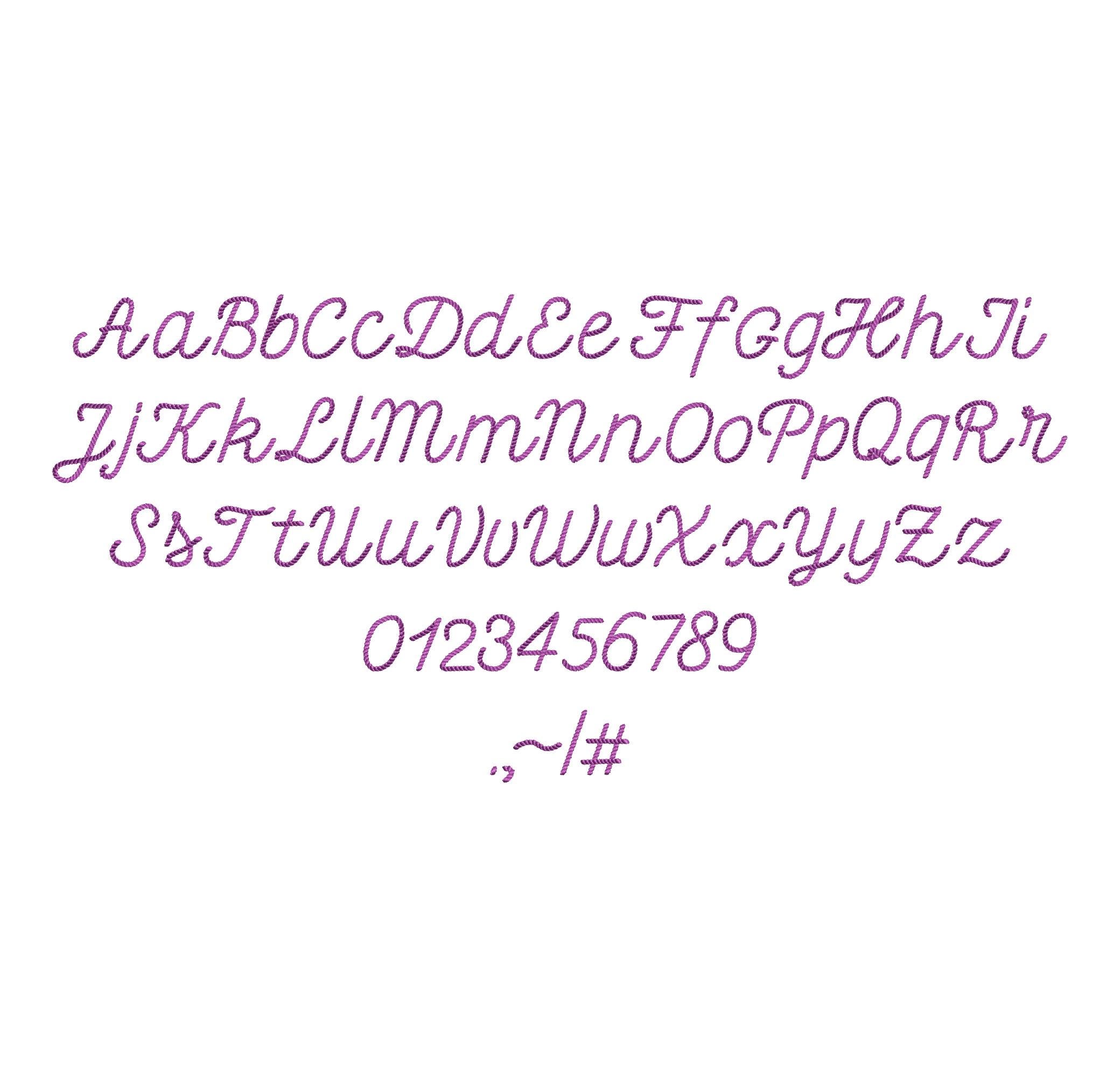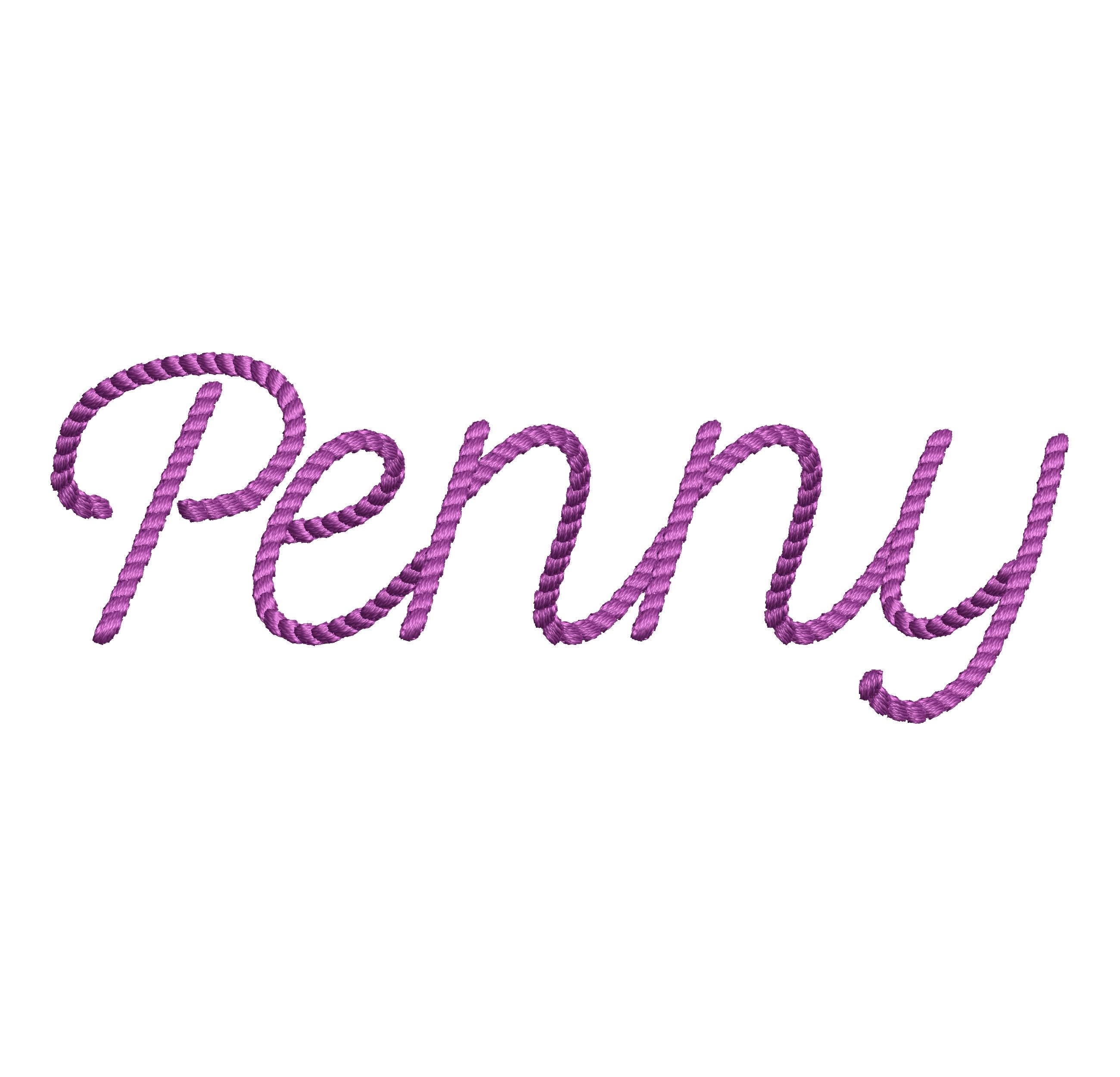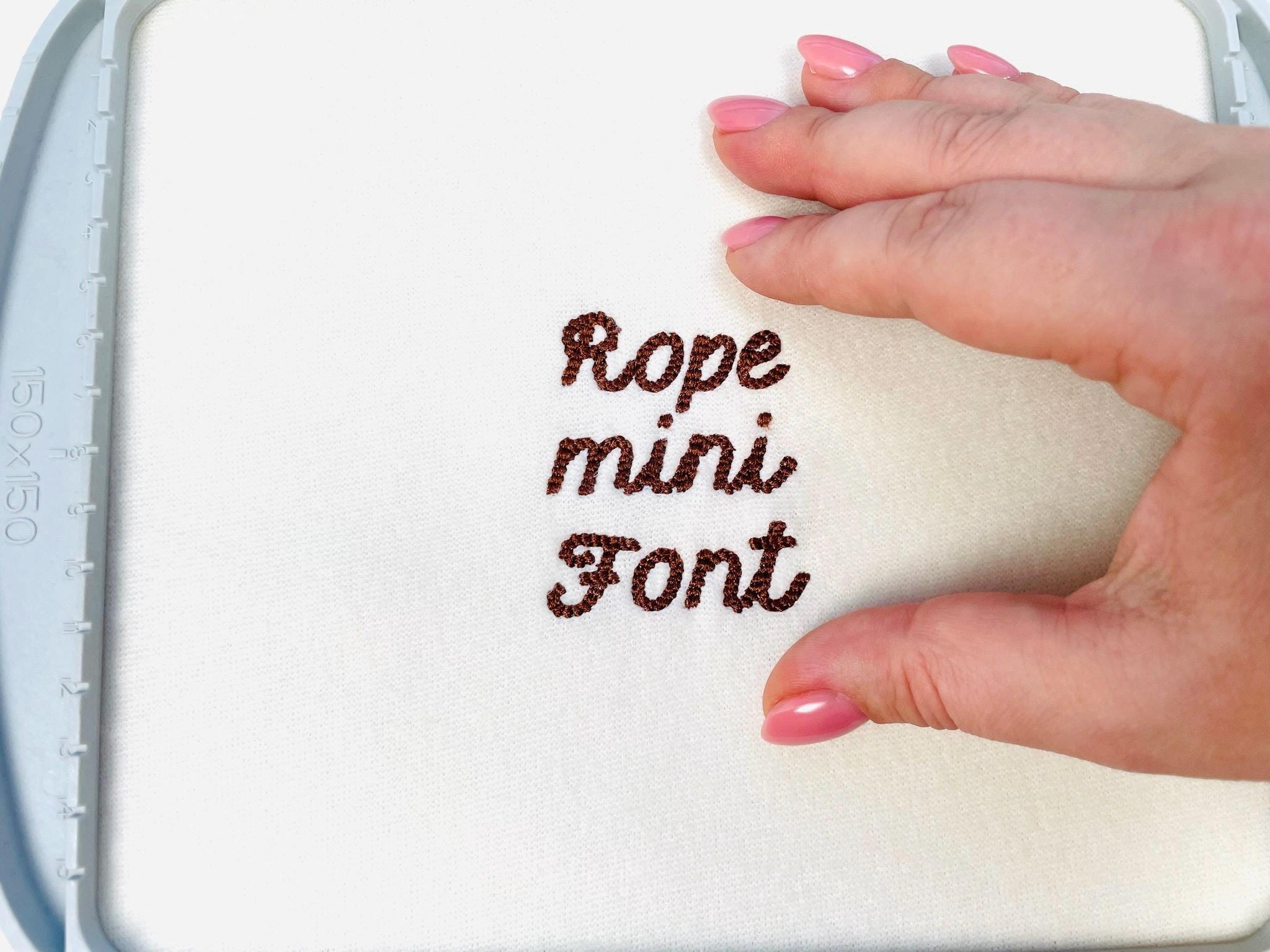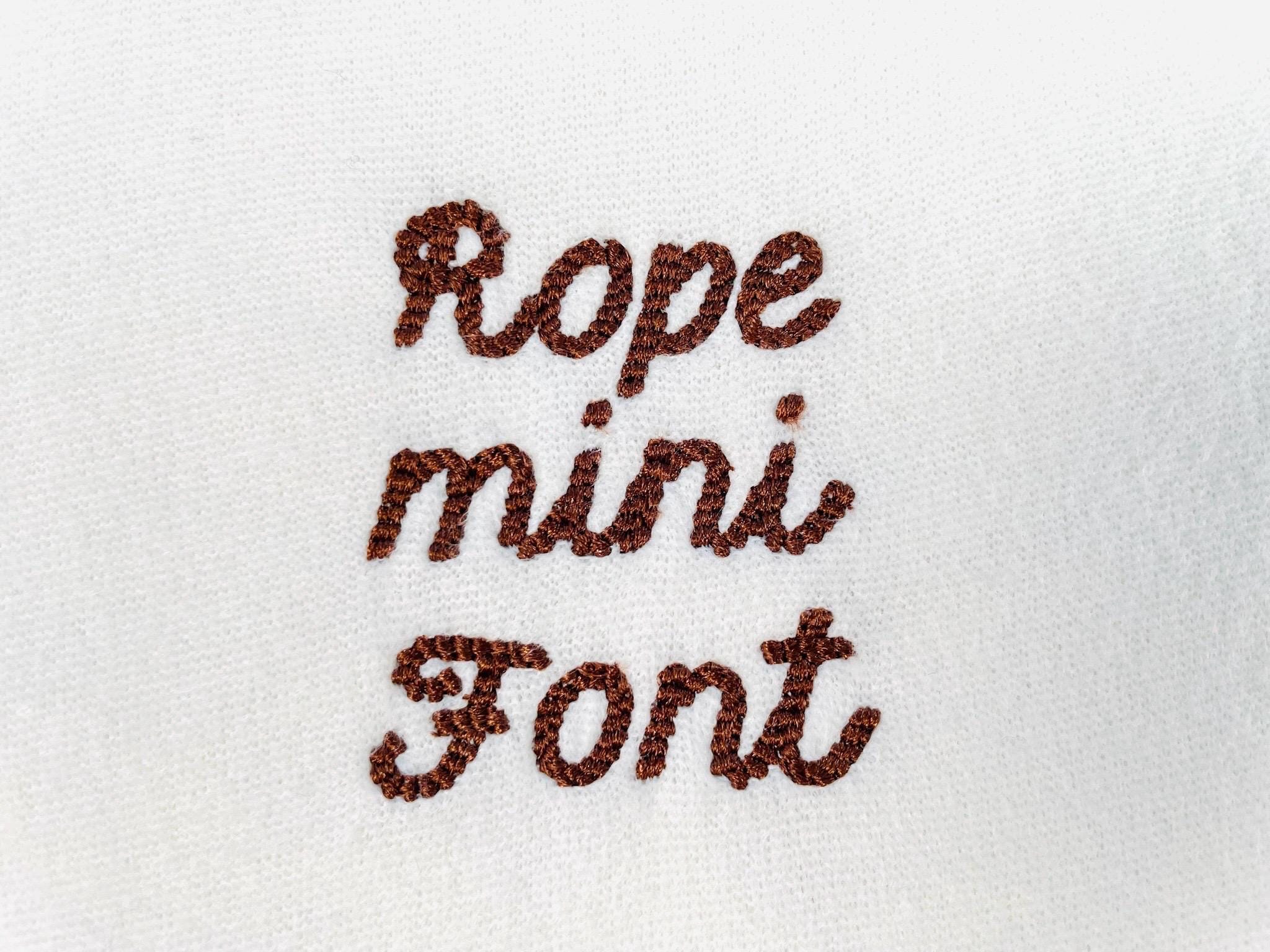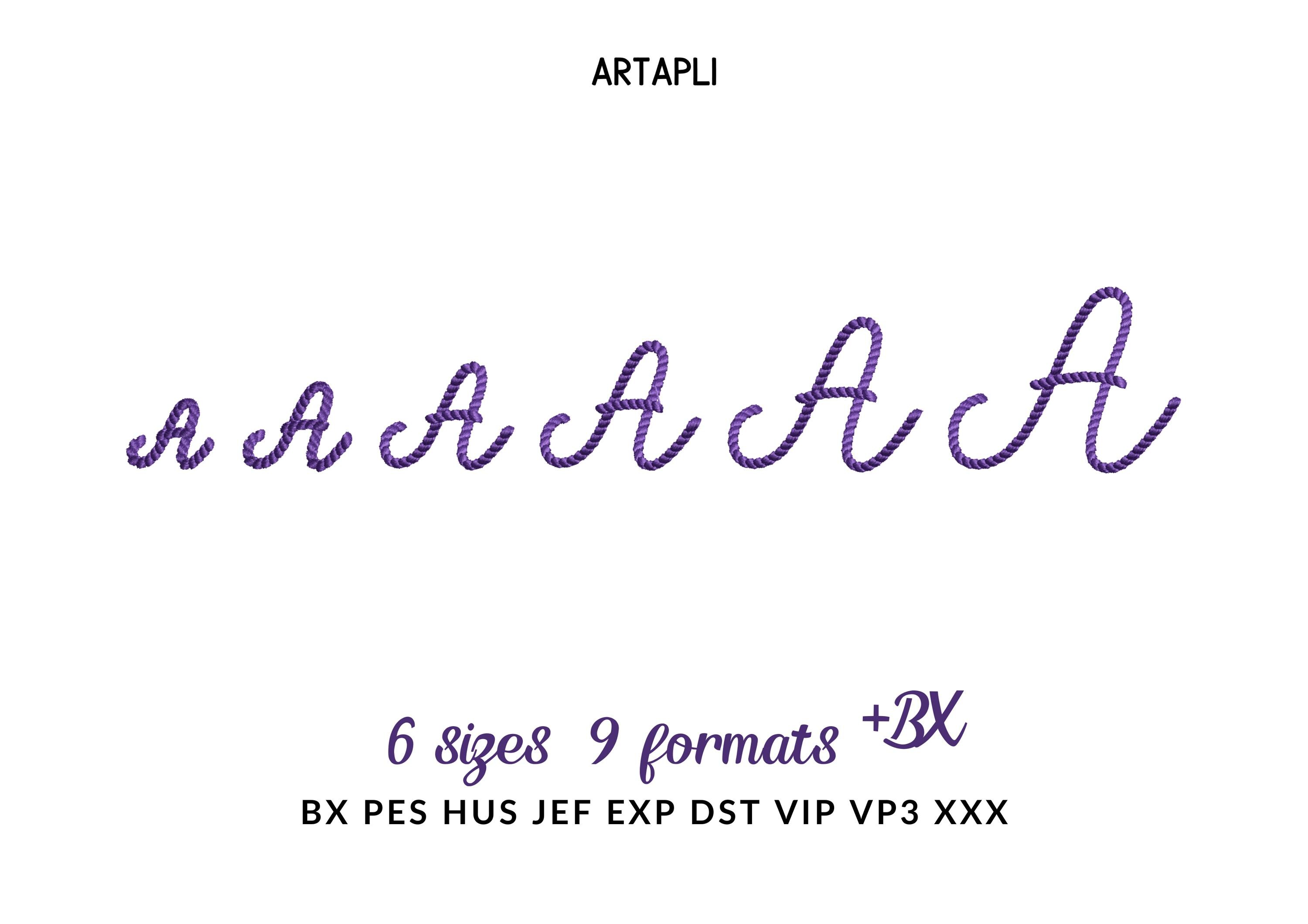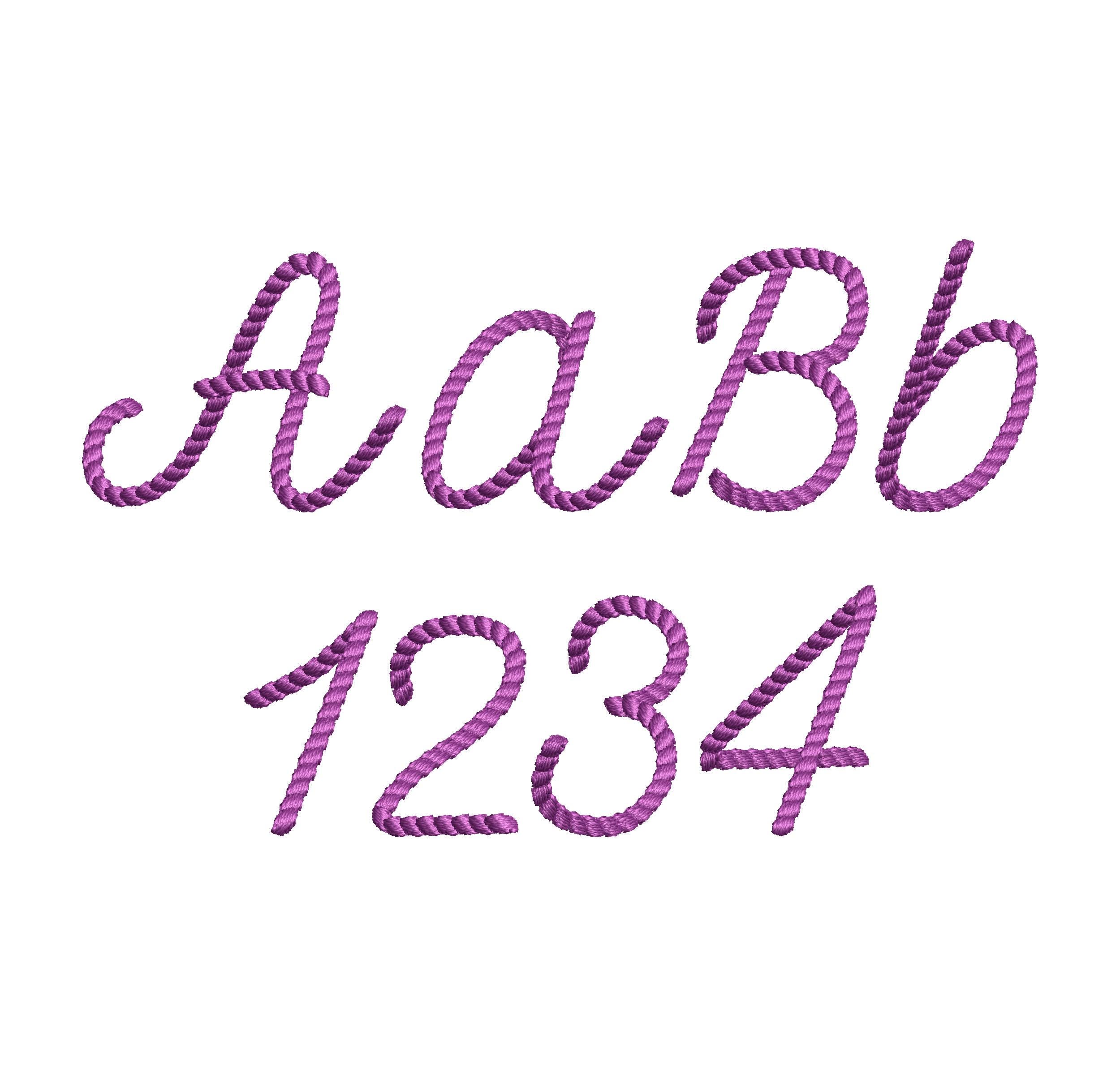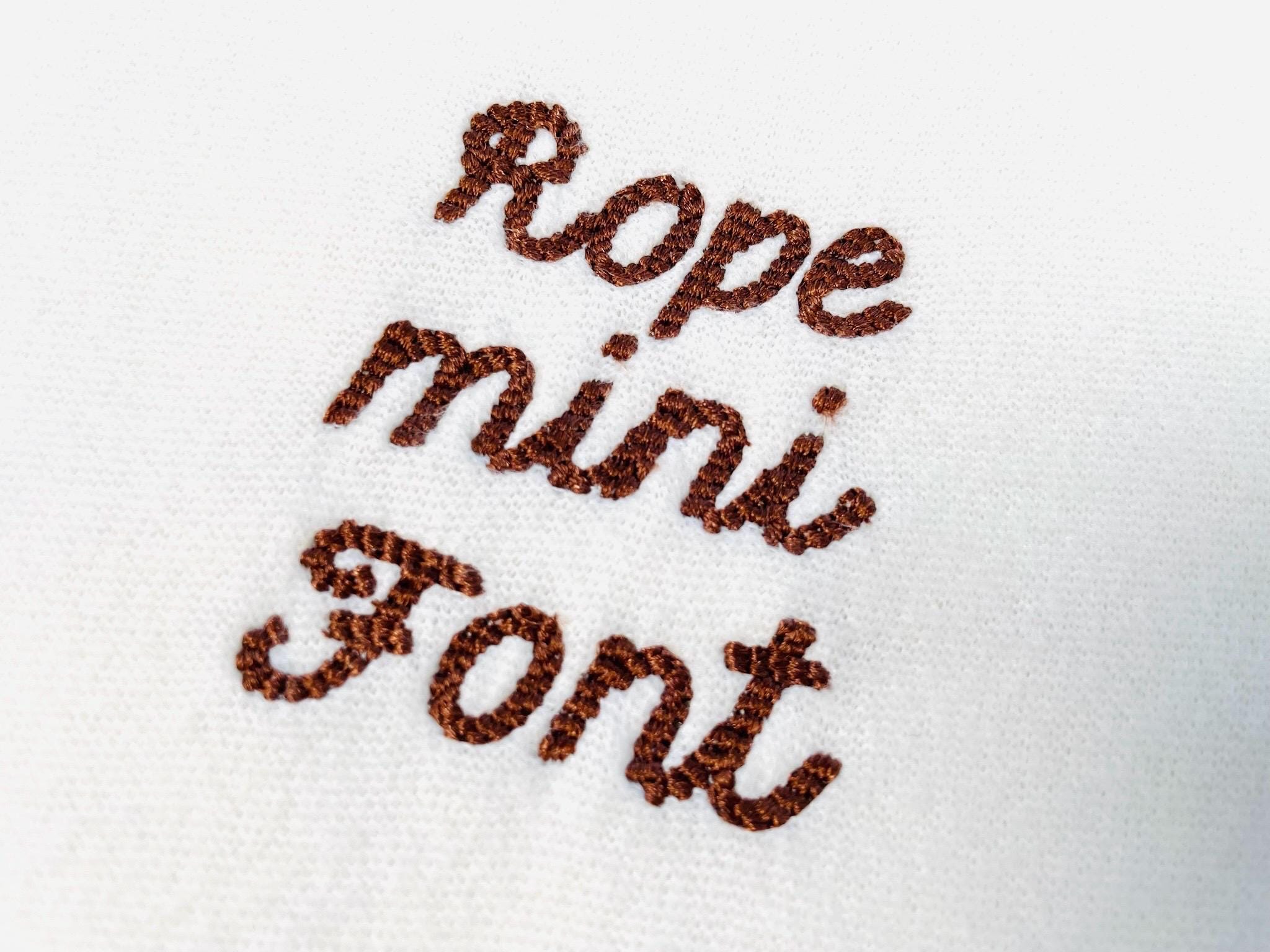
Mini Rope stitch FONT Penny Cowboy Cowgirl textured Alphabet Monogram Machine Embroidery Designs handwritten letters sizes 0.6 up to 1.5 inch, and BX
Entire alphabet Aa-Zz uppercase and lowercase letters, numbers 0-9, and punctuation.